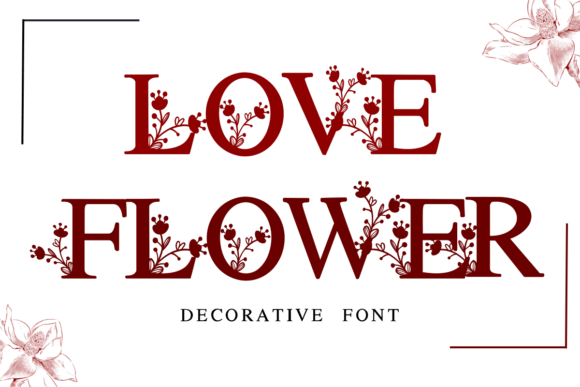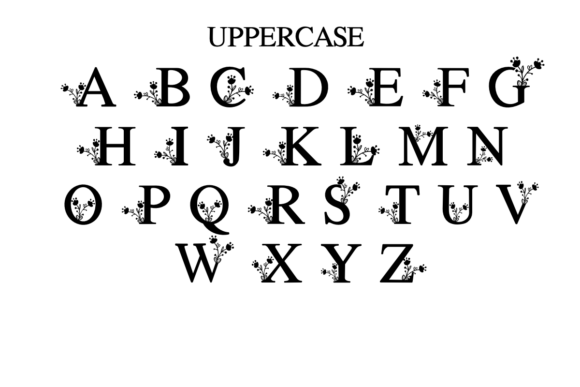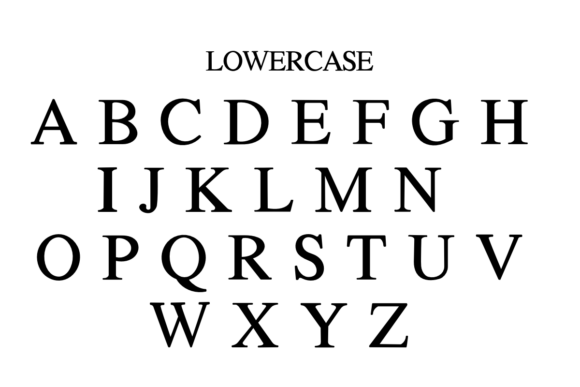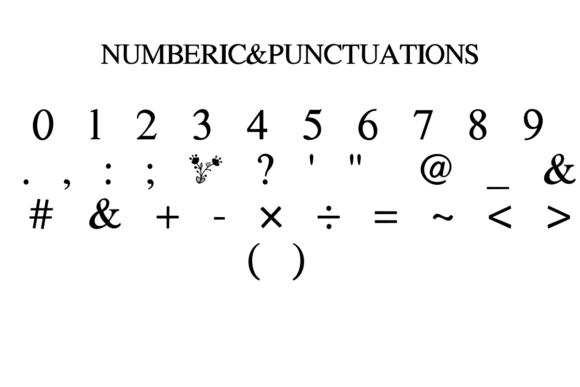
Love Flower Font
About the Love Flower Font
Add a touch of class to your work with the Love Flower Font, a truly exceptional typeface. Love flower is a Decorative font You can use it for taking notes, writing a diary, or making greeting cards. However, you can still use it for other designs, such as banners, content, mugs, cards, shirts, stationery, social media posts, and more!
Love Flower’s decorative style is ideal for headlines, short-form text on packaging, and branding elements where a playful, romantic feel is desired. It excels in projects emphasizing a handcrafted, whimsical aesthetic, such as invitations, greeting cards, and social media graphics. Avoid using it for body text or lengthy paragraphs; its ornate details can hinder readability in continuous prose. Similarly, it’s less suitable for UI elements needing high legibility.
Pairing Love Flower works best with simpler fonts to create contrast. Consider a clean sans-serif like Montserrat for body copy or a classic serif such as Garamond for a more formal balance. For a more modern feel, a geometric sans-serif like Futura would provide a striking juxtaposition.
The font’s overall personality is undeniably romantic and whimsical, lending itself to brands and projects with a lighthearted and feminine energy.
Love Flower Font Usage Examples
Love Flower Font Example